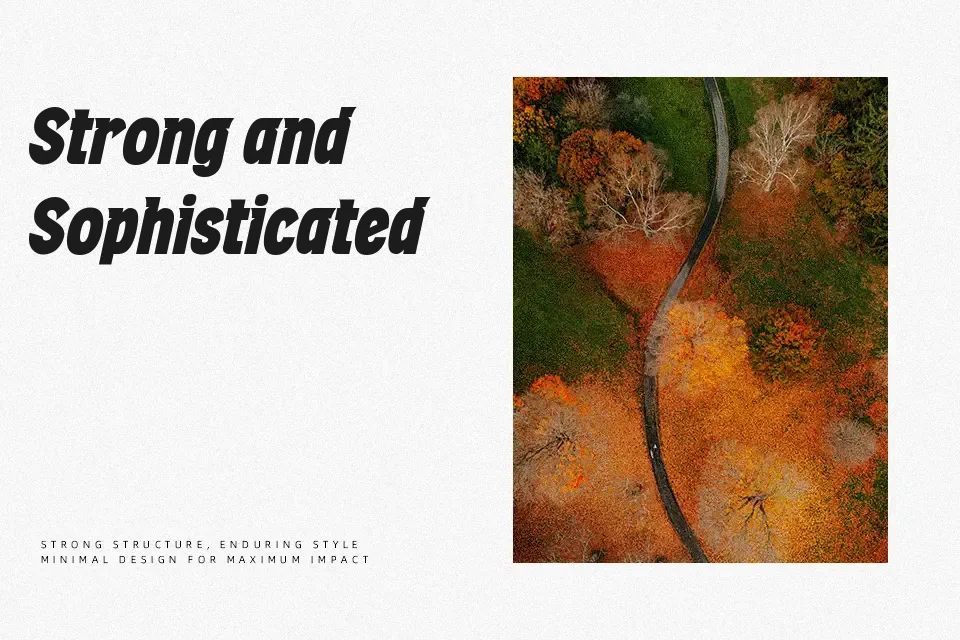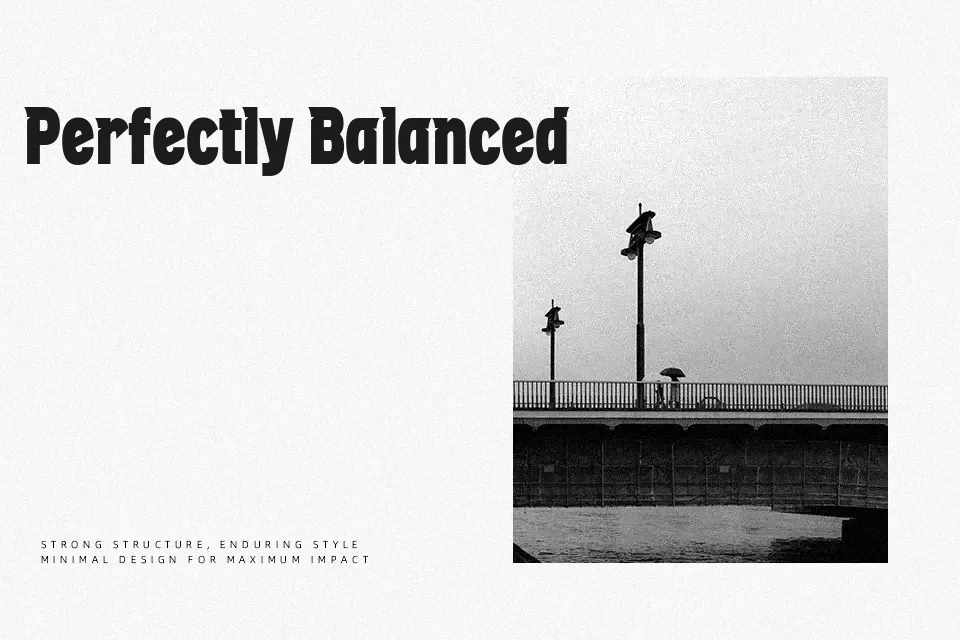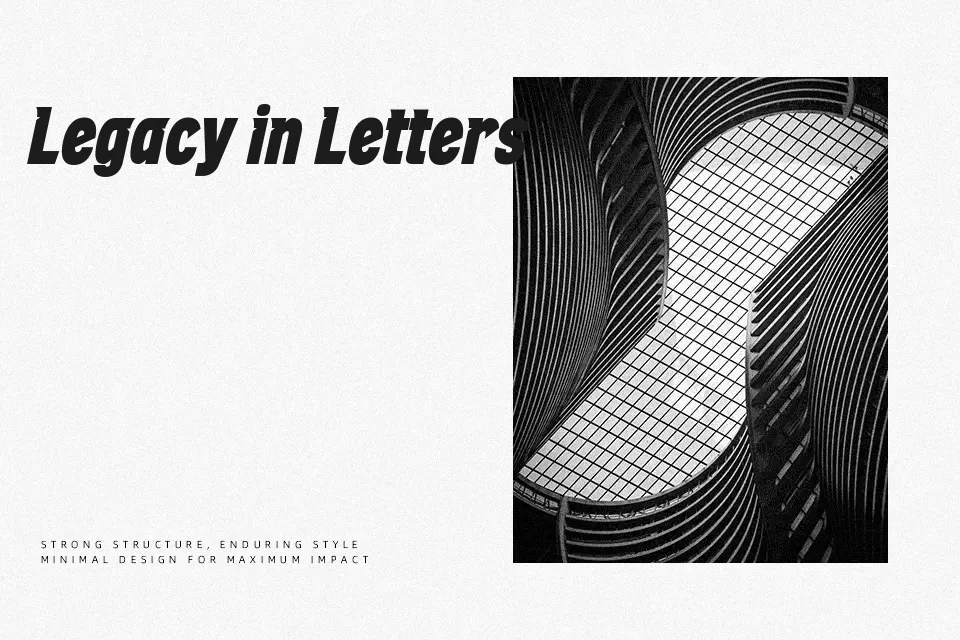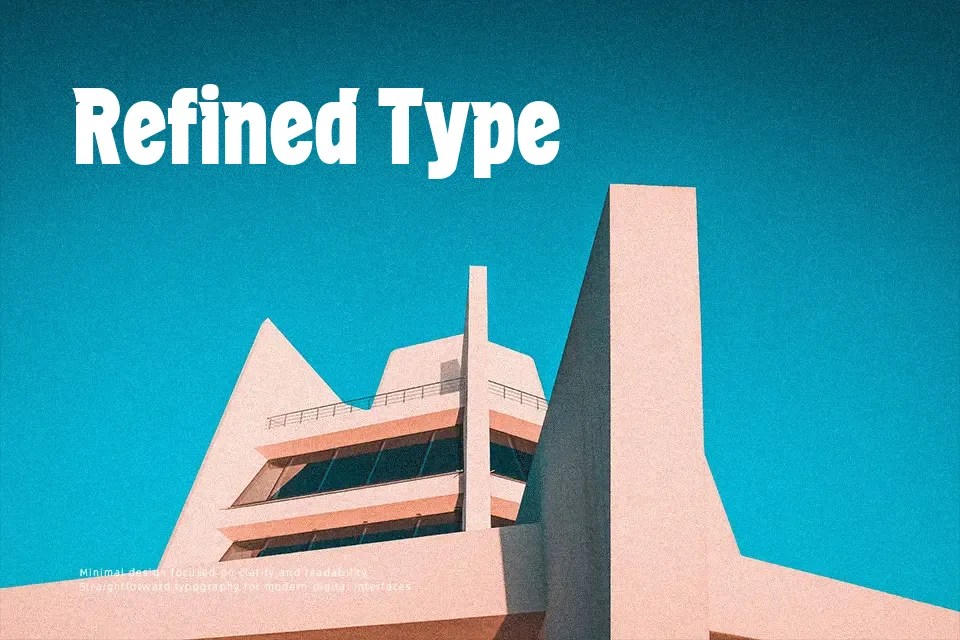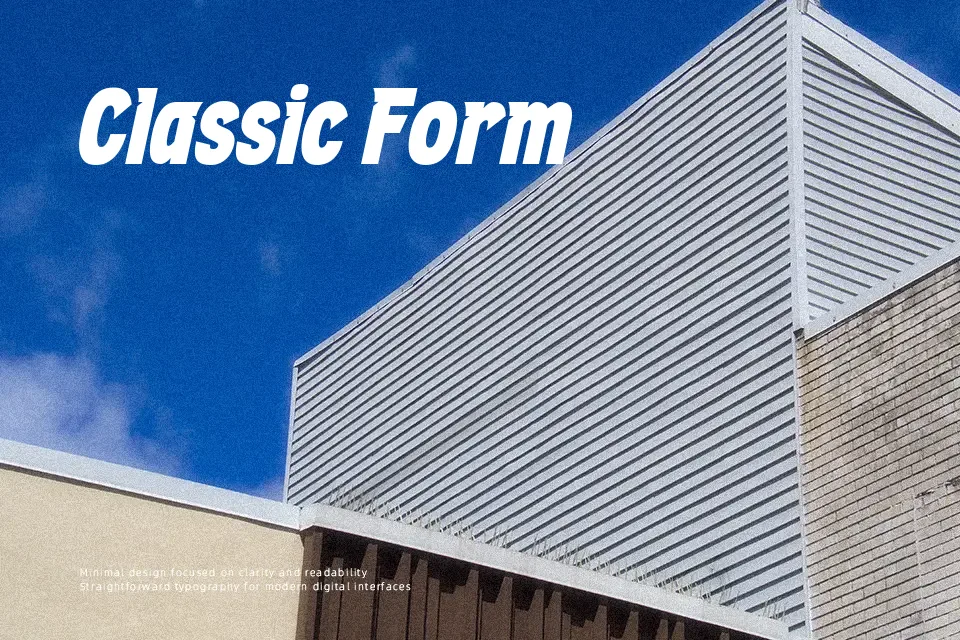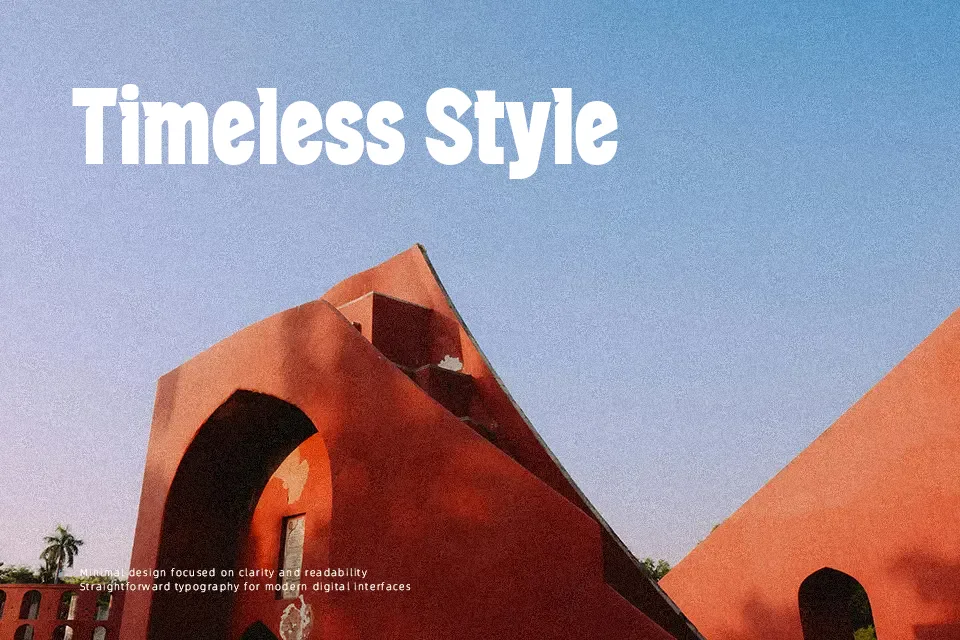
Bamen Font
Bamen Font has a compact display structure with wide strokes, geometric curves, and a strong, forward-leaning presence. It feels modern, energetic, and slightly industrial, which makes it useful for posters, sports graphics, vehicle ads, and headline treatments. The letterforms carry enough personality to stand out in short text, but the compressed shape can feel crowded in longer lines. It works well when you want impact and speed; it does not hold up as comfortably in dense reading copy.
Best For: Sports posters,Headline logos,Vehicle ads,Branding
Not Ideal For: Long paragraphs,Small body text,Formal reports,Text-heavy layouts
Perfect for advertising, branding, and headline, with a bold and condensed style.